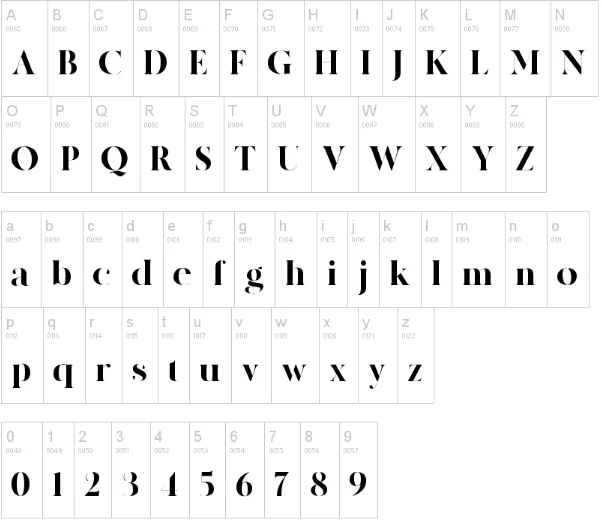
MADE Canvas is a serif font family with a lot of contrast. Canvas is a modern “Didoni” style. Light, Regular, and Black are the three weights of the type family. All of the fonts have very thin hairlines. Canvas Light.otf, Canvas Regular.otf, and Canvas Black.otf are among the font’s formats. Uppercase and lowercase letters, digits, punctuation, and multilingual support are just a few of the font’s characteristics. MADE Canvas is the font’s font family.